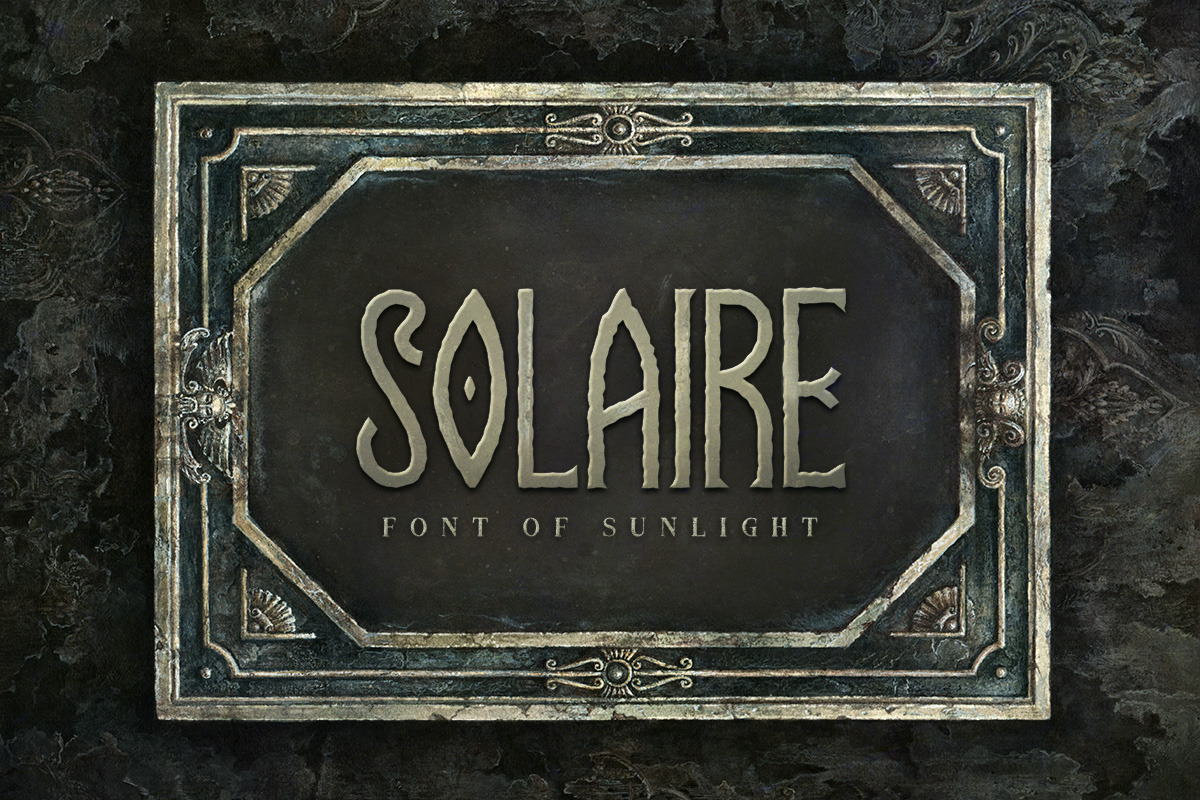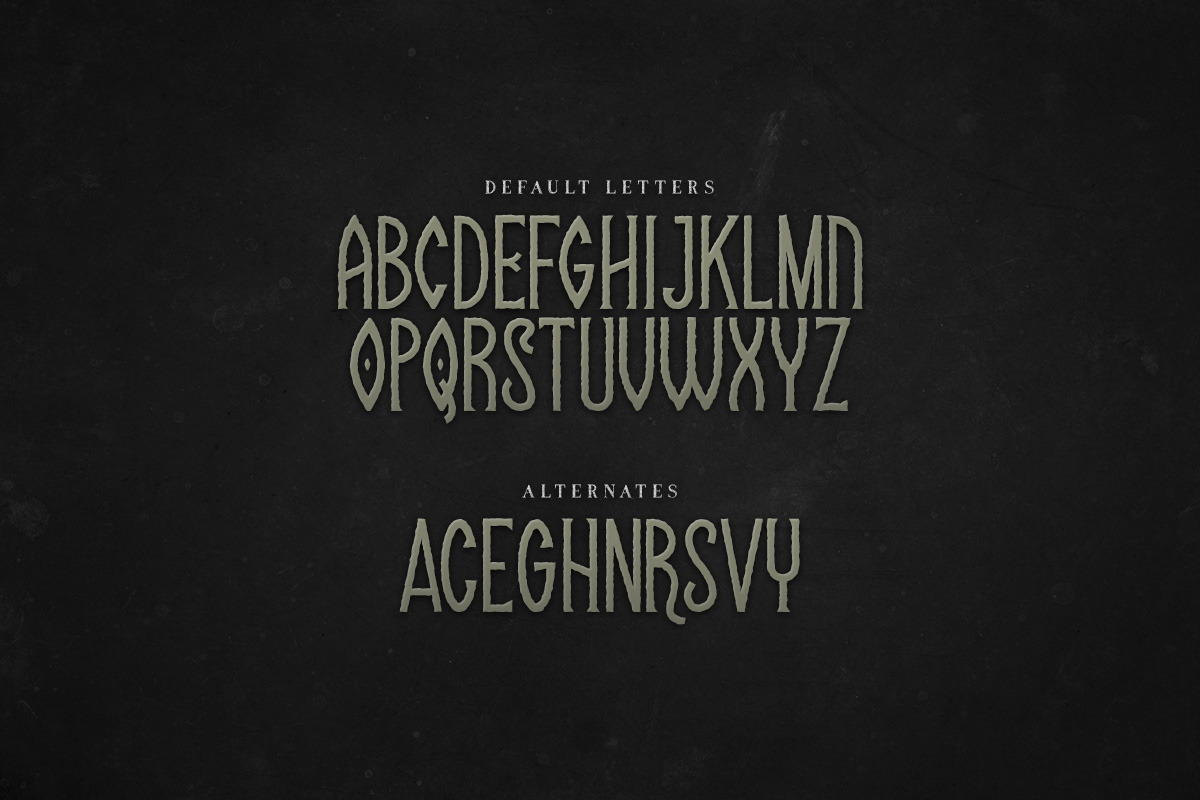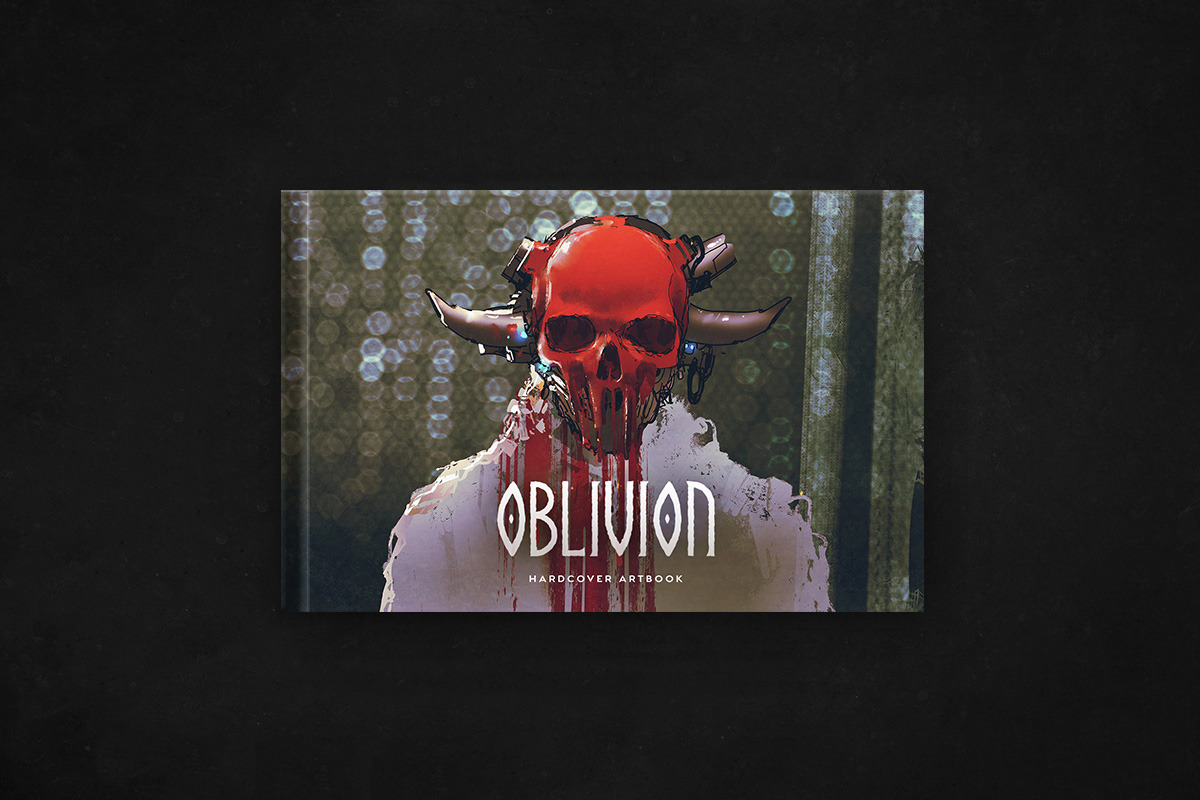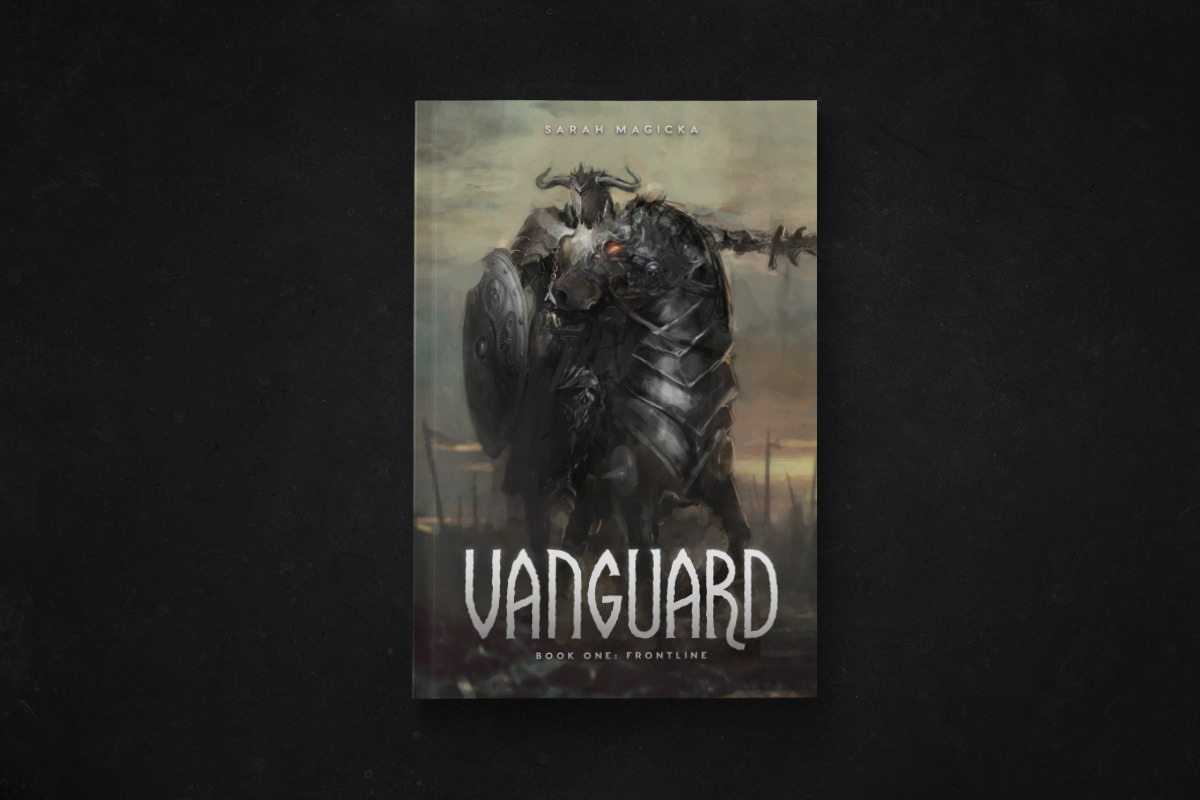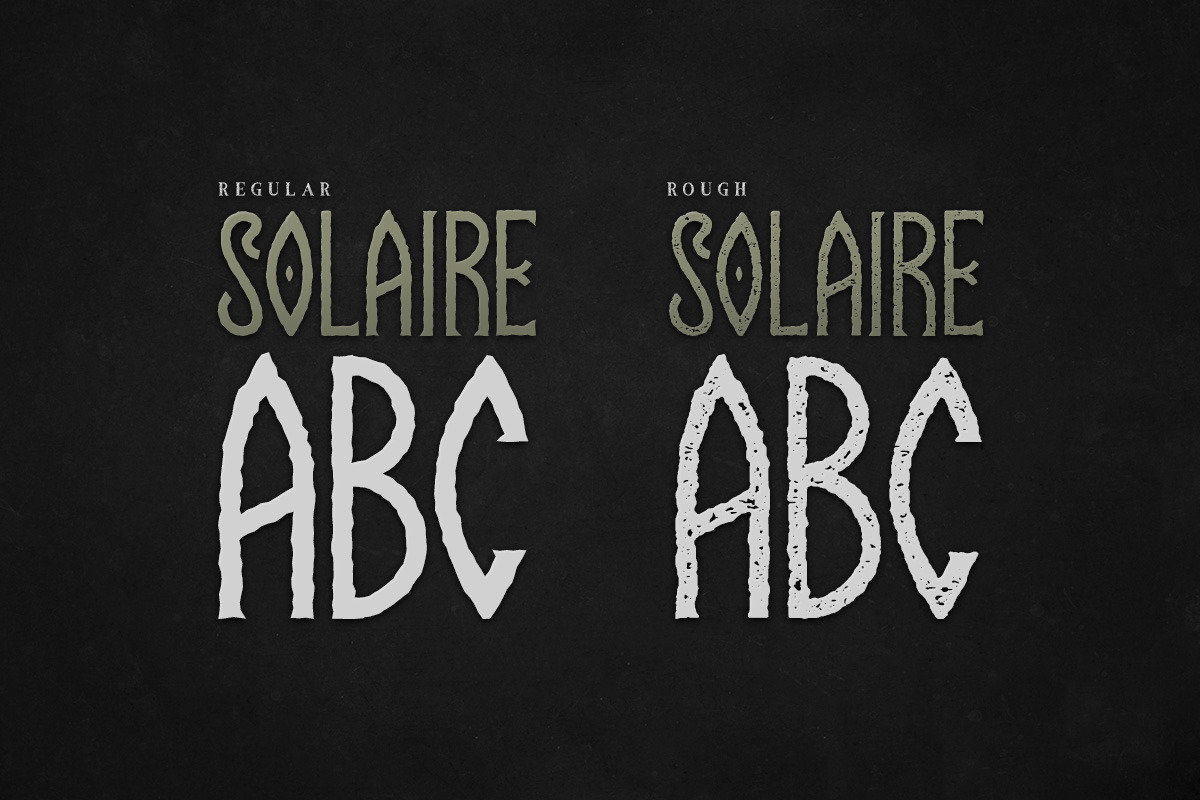
Solaire Typeface
Solaire is a fantasy themed font family with a runic feel to it. Some letters have alternates which can be toggled via caps lock. The font comes in regular & rough styles, it includes uppercase multilingual letters, numbers and punctuation.